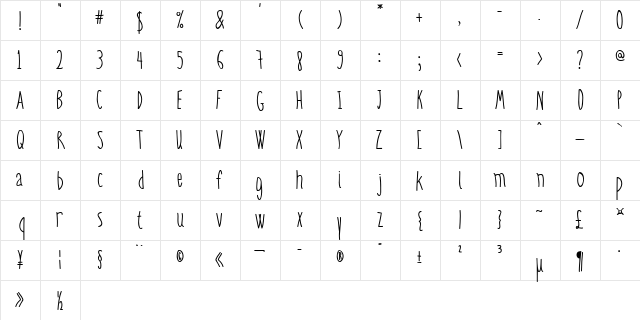
BPtall Regular
Design Context for BPtall Typeface
BPtall is a composed and adaptable typeface that performs quietly and consistently across a wide range of design contexts.